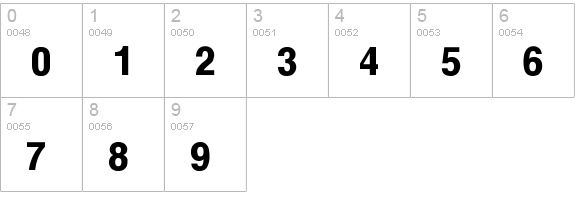
Westfalia Font Details
Westfalia font is a stunning typeface that exudes elegance and sophistication. Its sleek and modern design makes it perfect for a wide range of projects, from branding and logo design to packaging and advertising. The clean lines and unique letterforms of Westfalia font add a touch of class to any design. One of the most remarkable aspects of Westfalia font is that it is available for free. Yes, you heard that right! This exceptional font can be freely downloaded from FontsMarket.com, allowing designers and creatives to access this beautiful typeface without any cost. Whether you're a professional designer or a hobbyist, Westfalia font offers a wealth of possibilities. Its versatility allows it to be used in a variety of contexts, from elegant wedding invitations to eye-catching posters. The attention to detail in every glyph of Westfalia font ensures that your designs will always stand out from the crowd. Not only is Westfalia font visually striking, but it also offers excellent readability. The carefully crafted letterforms make it easy to read even at small sizes, ensuring that your message is conveyed effectively. So why wait? Take advantage of the opportunity to download Westfalia font for free at FontsMarket.com. Add a touch of sophistication and elegance to your designs with this extraordinary typeface. Whether you're designing for print or web, Westfalia font is sure to elevate your projects to new heights.